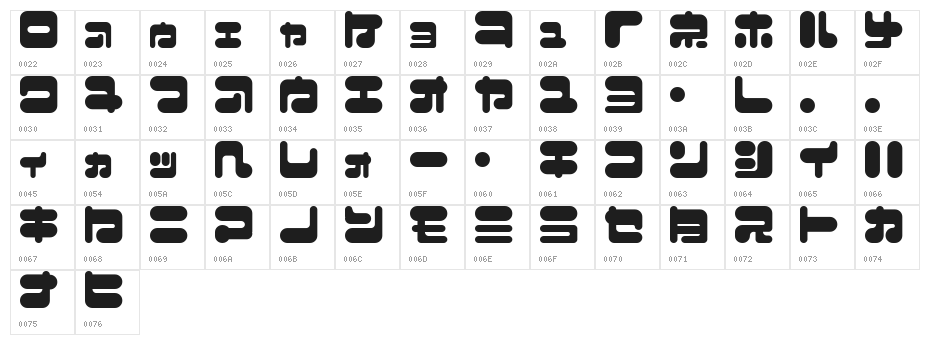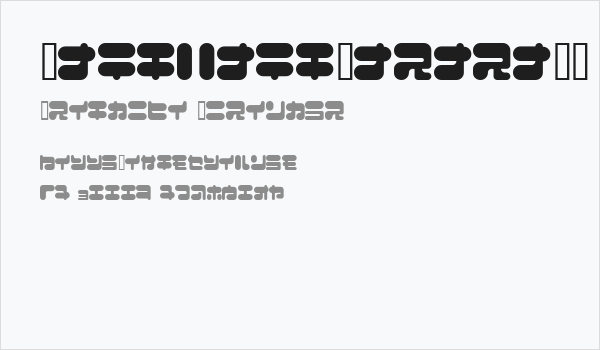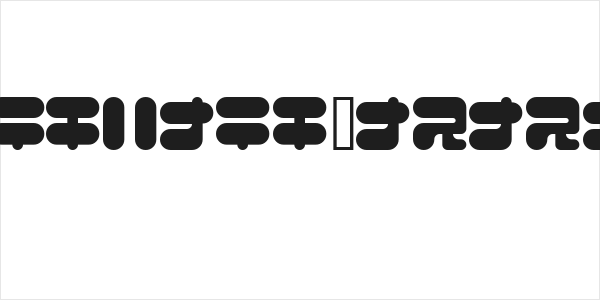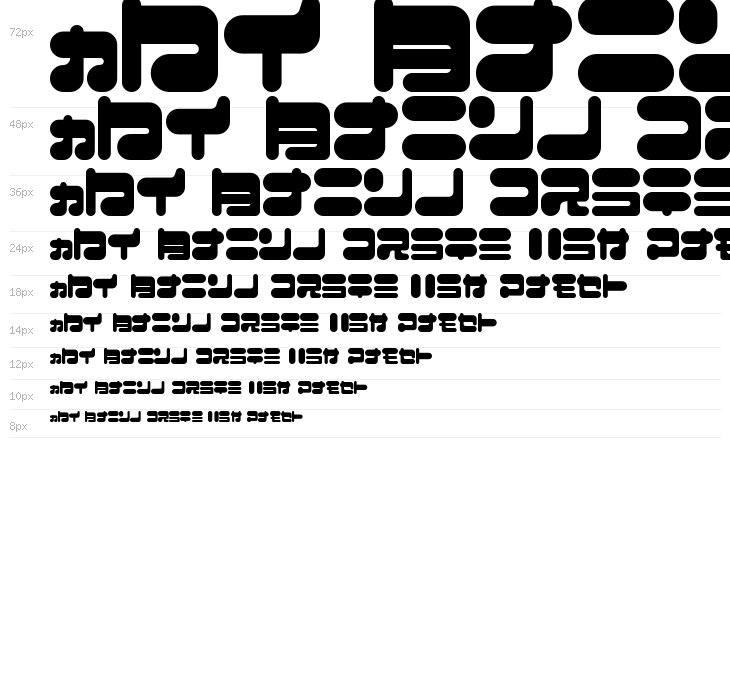
FuwafuwaFururuKS Font
FuwafuwaFururuKS Description
This font features a bold, playful design with a distinctly rounded and bubbly appearance. Each character is crafted with thick, uniform strokes that create a sense of weight and presence. The letters are highly stylized, with a unique blend of geometric and organic shapes that give them a modern, futuristic feel. The font's overall aesthetic is both fun and approachable, making it suitable for creative and informal applications. Its distinctiveness lies in the exaggerated curves and soft edges, which contribute to its friendly and inviting look.
| Proposed Projects | Ideal for children's books, playful branding, posters, and creative digital content. |